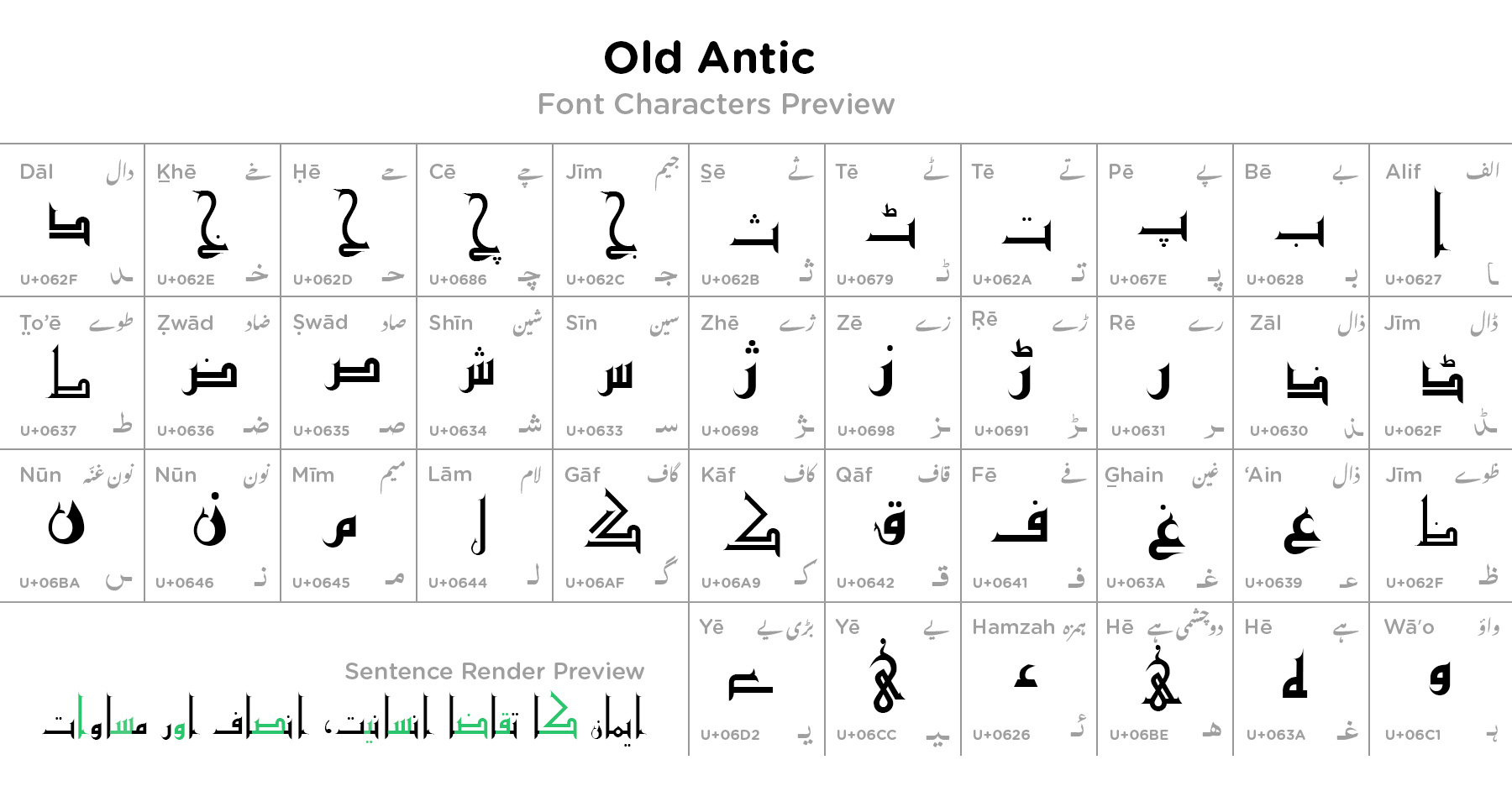
Old Antic, designed by Platinum Technology 96 and published by Microsoft, is a highly decorative and bold font inspired by traditional Kufic calligraphy with modern influences. Released on July 17, 2017, it features filled letters with intricate slithering designs, giving off a sense of elegance. With 470 characters and 250 glyphs, Old Antic offers versatility across various languages, including Urdu, Arabic, Latin, Persian, and more. However, its Unicode blocks are limited to Basic Latin, Latin-1 Supplement, and Private Use Area. It's weights include:
The font is characterized by its thick and constant thickness throughout the letters, contributing to its impactful and strong stroke. Some vertical characters feature curvy slithering shapes resembling decorative ribbon ends, with sharp corners and decorative pointy edges. The letters are condensed, enhancing the font's decorative look. While this font shines in branding, advertising, logos, book covers, posters, and newspaper headlines, its intricate design may pose challenges for legibility, especially at smaller resolutions. Therefore, it is best suited for short text applications where its decorative nature can be appreciated without compromising readability.